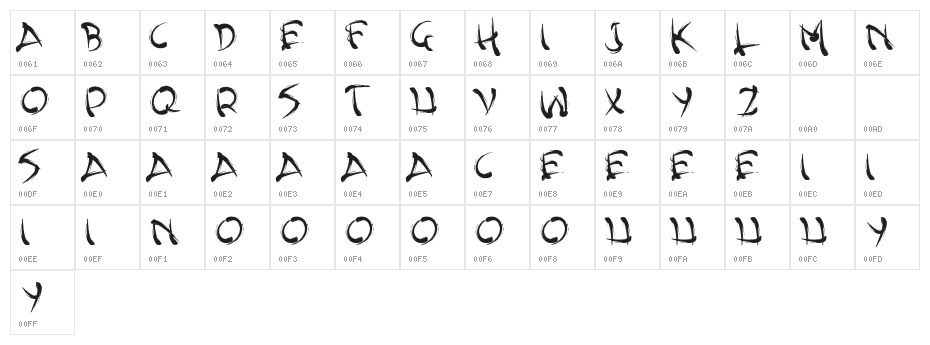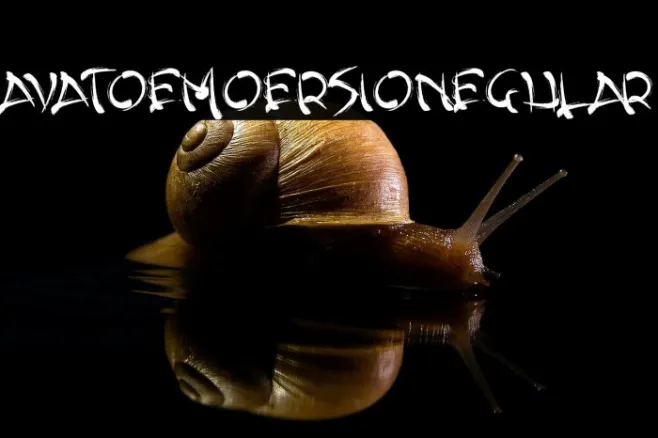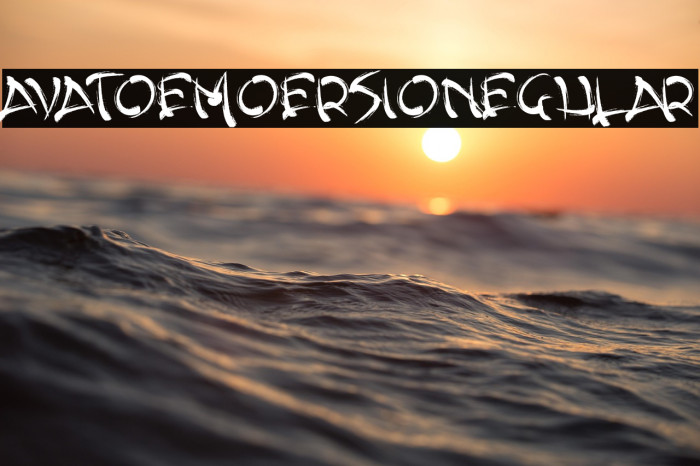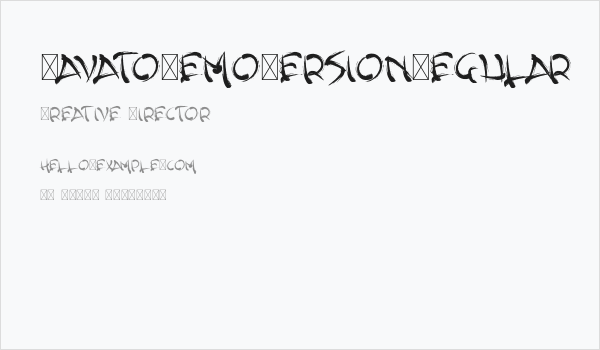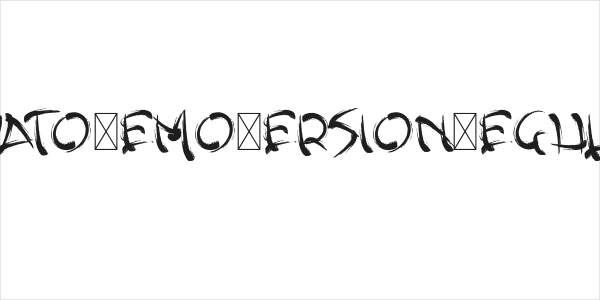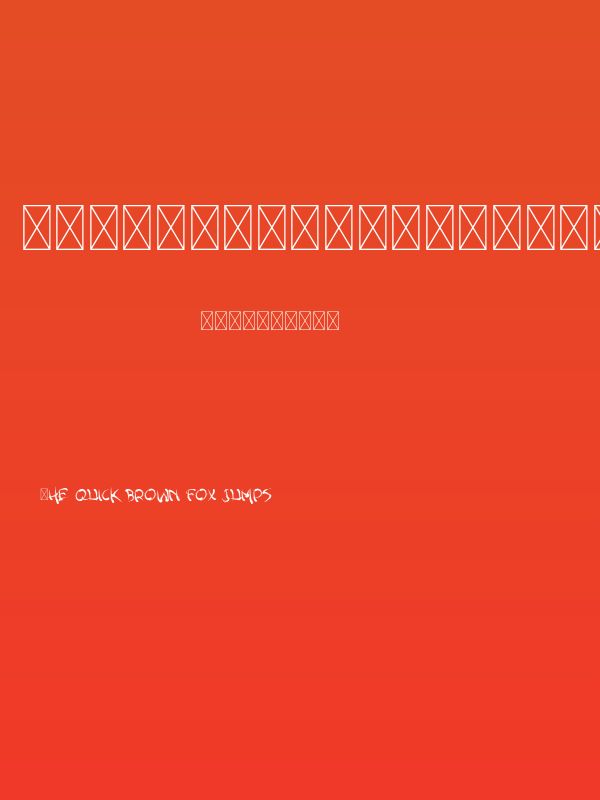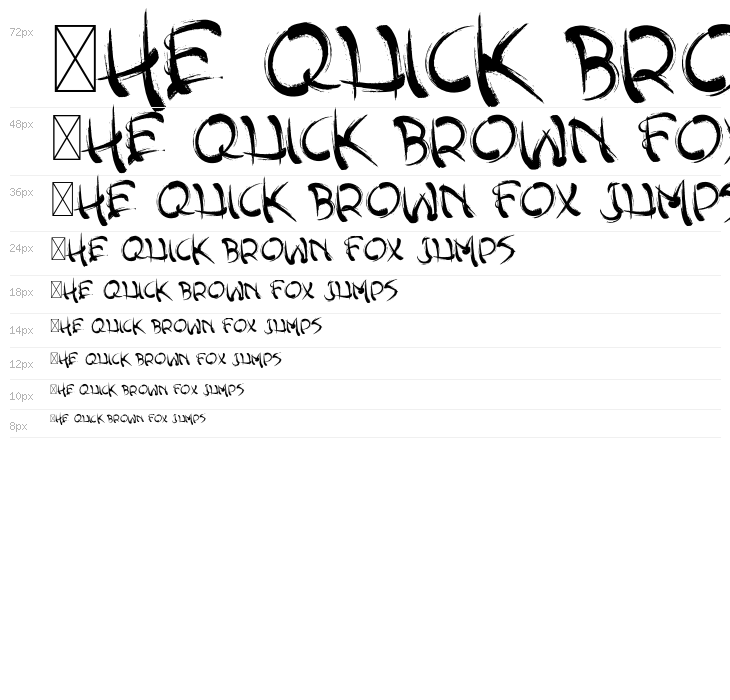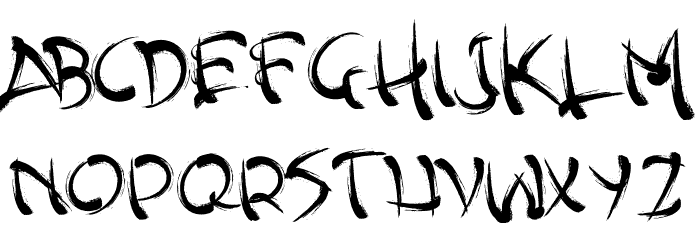
YavatoDemoVersionRegular Font
YavatoDemoVersionRegular Description
This font features a dynamic and expressive style, characterized by its brush-like strokes and energetic appearance. The uppercase letters exhibit a bold and artistic flair, with each character displaying unique variations that add to the overall handcrafted feel. The strokes are uneven, with some parts thicker than others, creating a sense of movement and spontaneity. This font is ideal for projects that require a touch of creativity and individuality, making it suitable for artistic and expressive designs.
| Overall Style | Expressive, Artistic |
| Use Case | Headlines, Logos, Artistic projects |
| Proposed Projects | Ideal for artistic posters, creative branding, expressive headlines, and unique logo designs. |